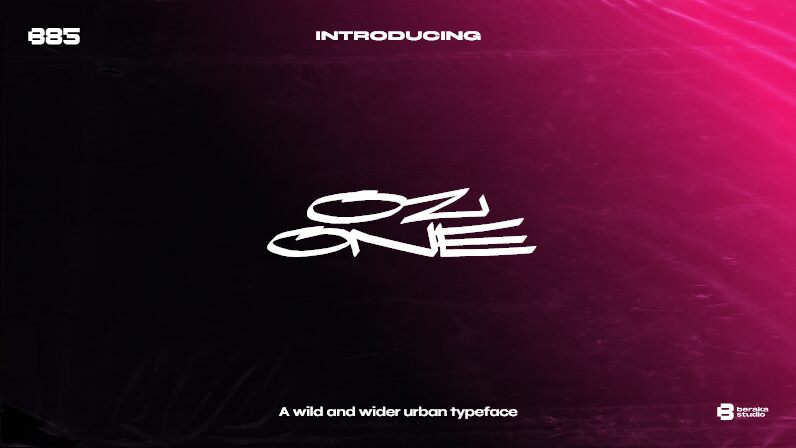
Ozone DEMO - B85 Regular
Ozone font by B85 is an expressive and artistic font. Modern, unconventional, and wide, it boasts an energetic presence inspired by urban graffiti styles. Similar to a street artist's bold tag, each character becomes the center of attention thanks to their unique stylish presentation that fits naturally together.
Emblem designs, logo or visual identity creation, blog or magazine headers are some ideas for this free modern display font. Use it also for product labels and packaging in the food industry field whether you're after an elegant or playful look!